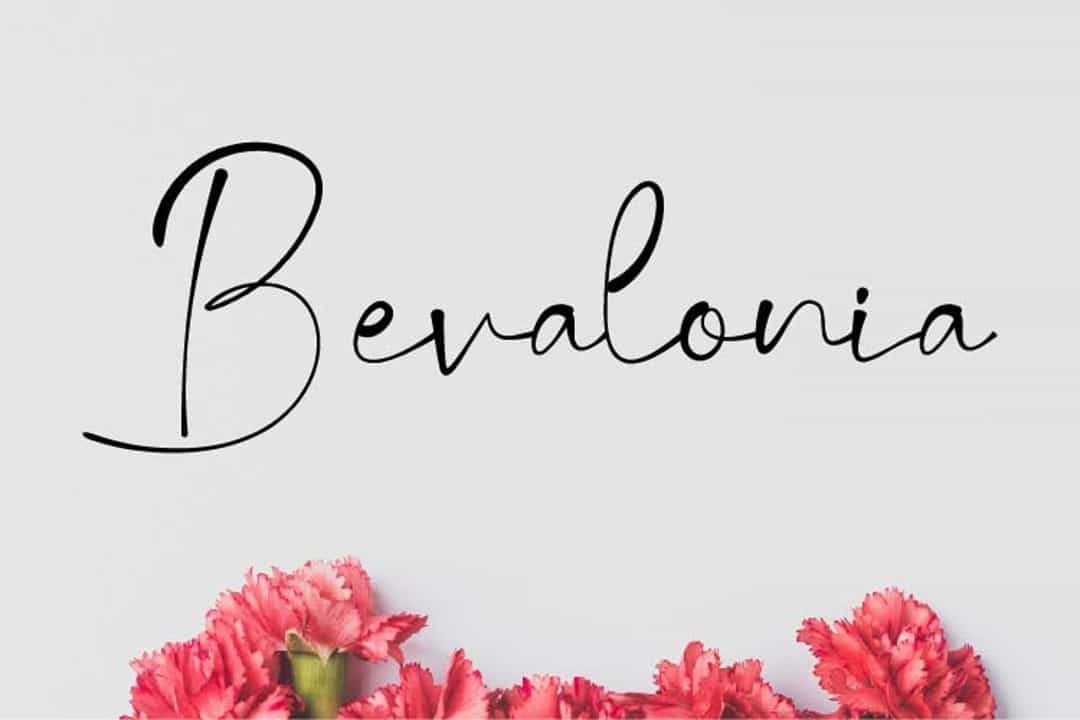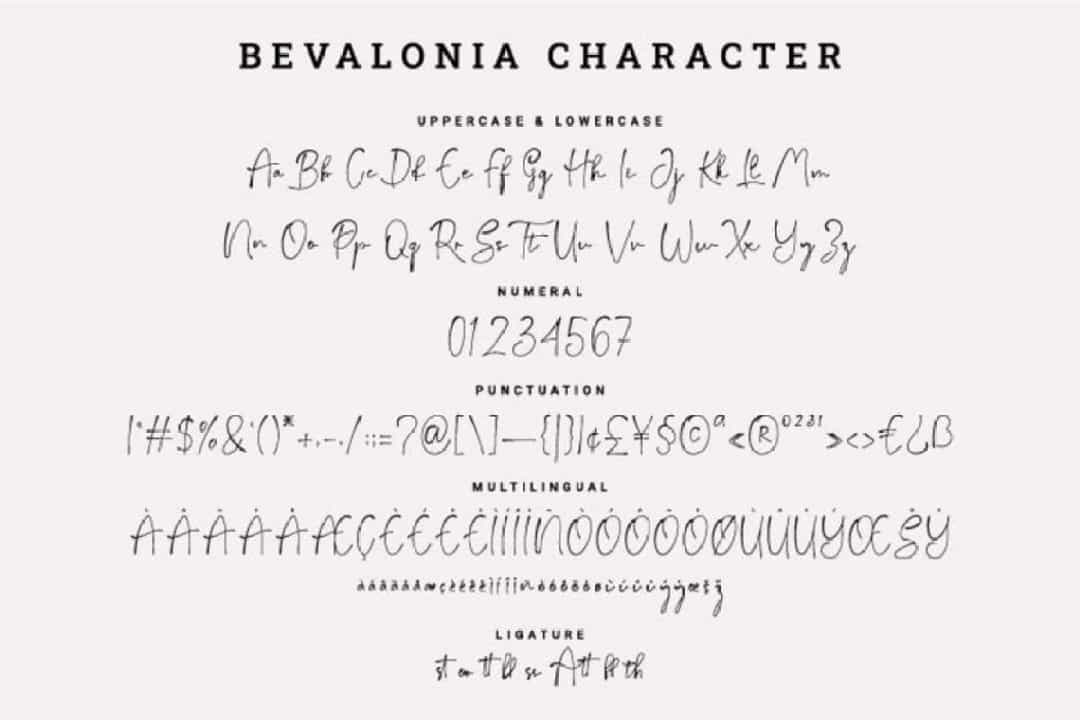
Bevalonia is a handwritten font with a stylish and beautiful look due to the presence of the ligatures. Ideal for use in a number of print and digital media such as logos, wedding invitations, craft products, advertisements both online and offline, and business cards, it is definitely attention grabbing!